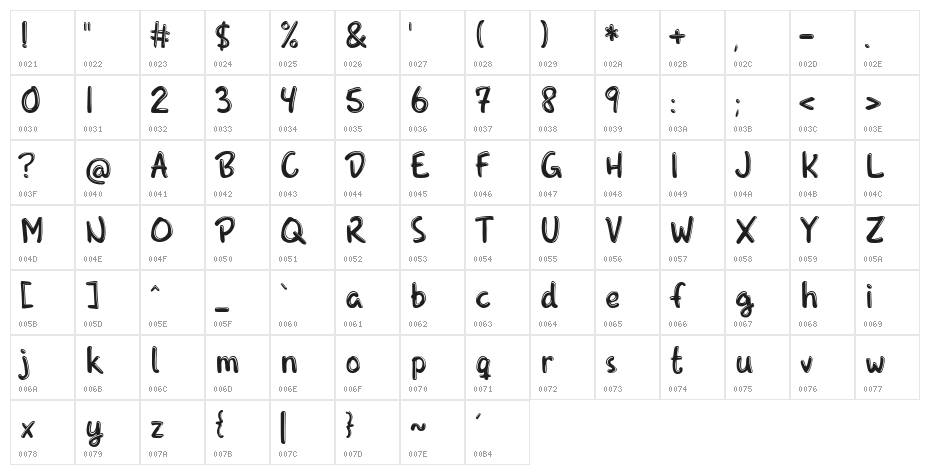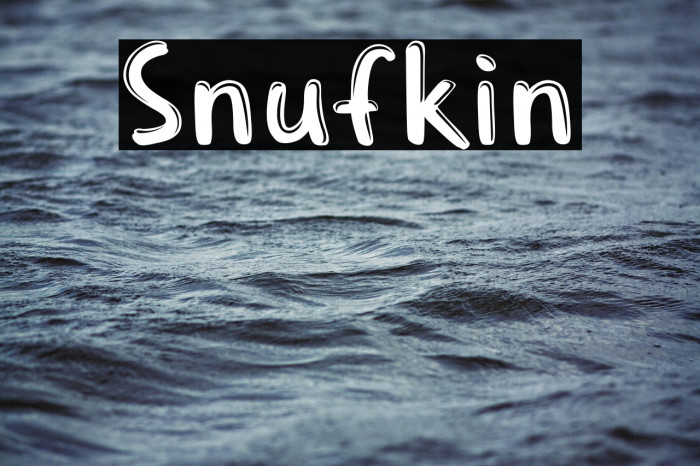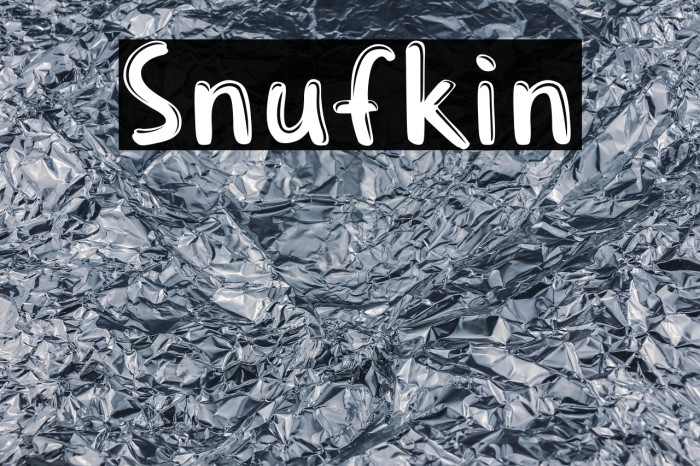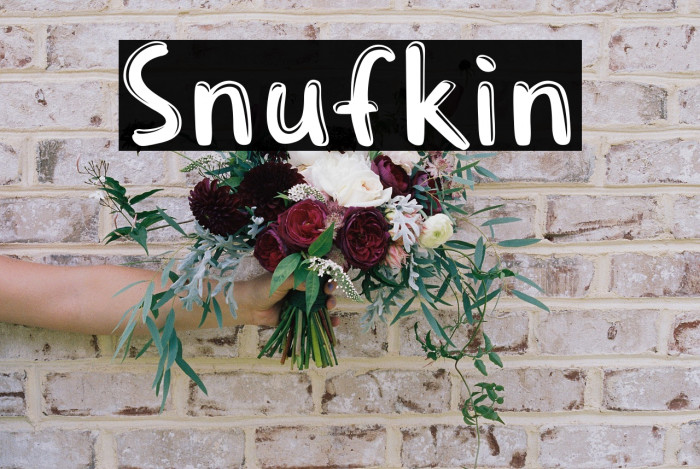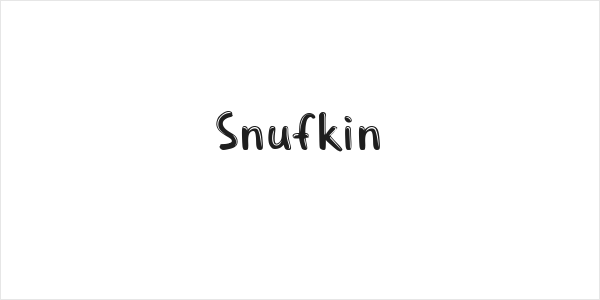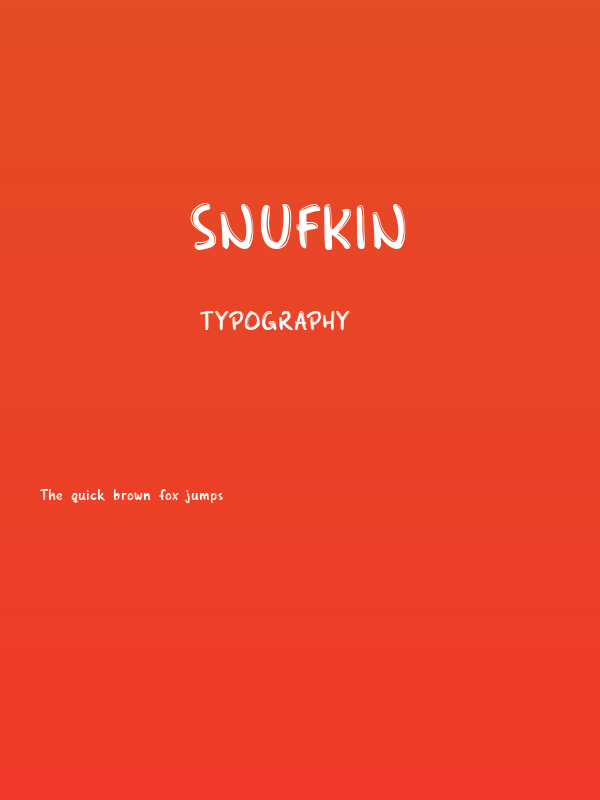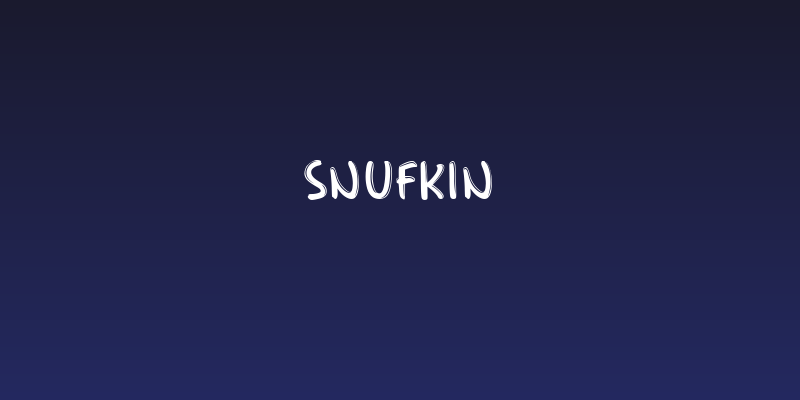
Snufkin Font
Snufkin Description
This playful and bold font features a handwritten style with a touch of whimsy. The letters are rounded and slightly irregular, giving it a casual and friendly appearance. The strokes are thick, providing a strong presence on the page, while the slight slant adds a dynamic feel. The font maintains a consistent weight throughout, ensuring readability. The characters are well-spaced, allowing for clear legibility even at smaller sizes. This font is versatile, suitable for a variety of creative projects that require a personal and approachable touch.
Overall StylePlayful
Proposed ProjectsIdeal for children's books, greeting cards, playful branding, and social media graphics.